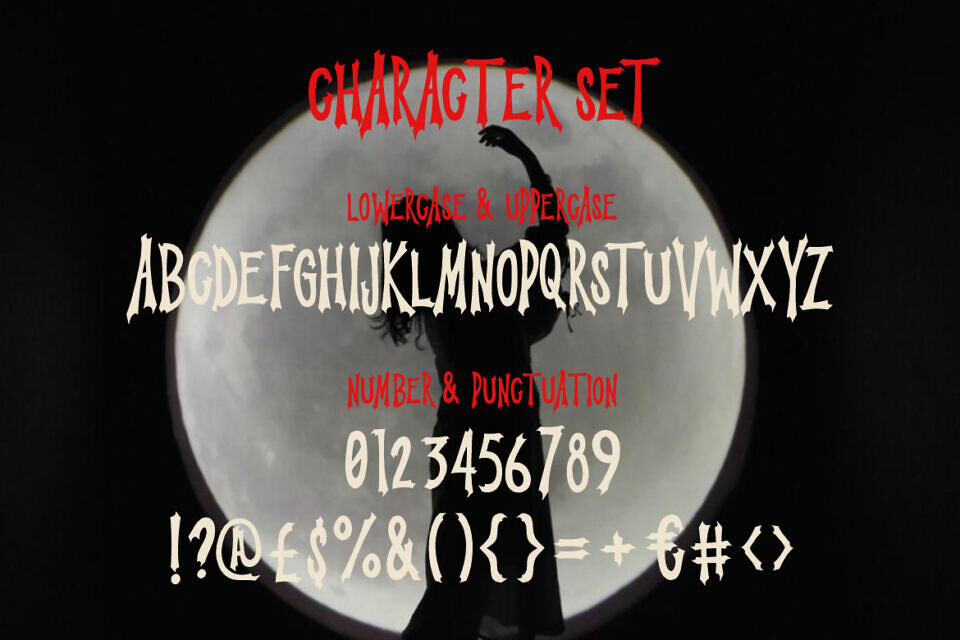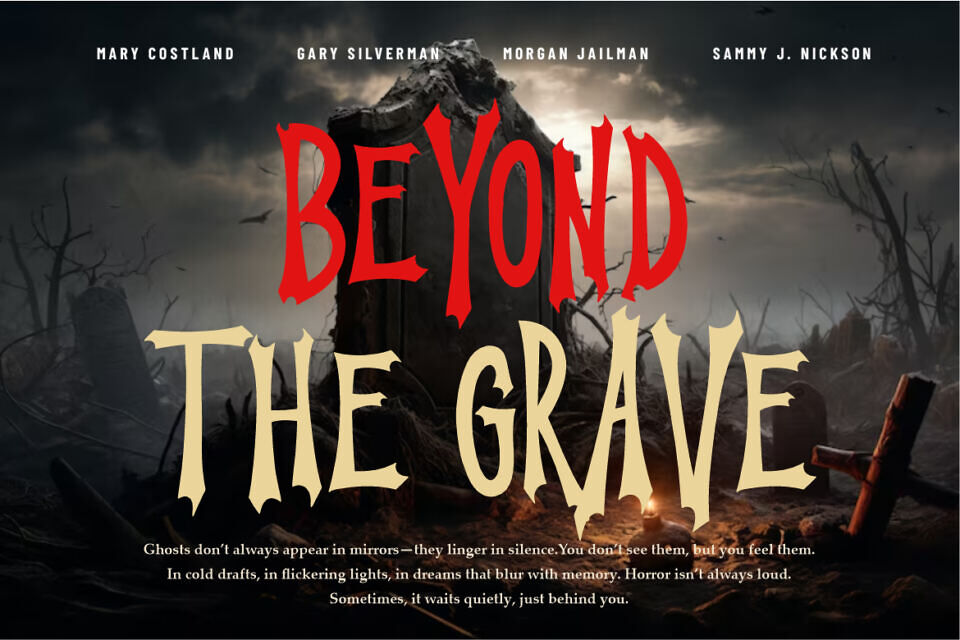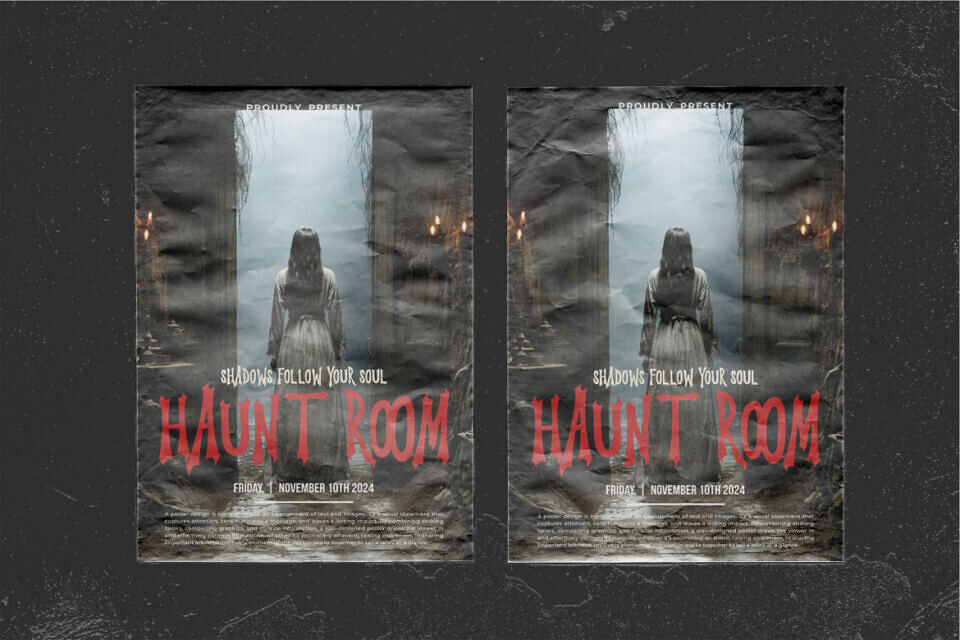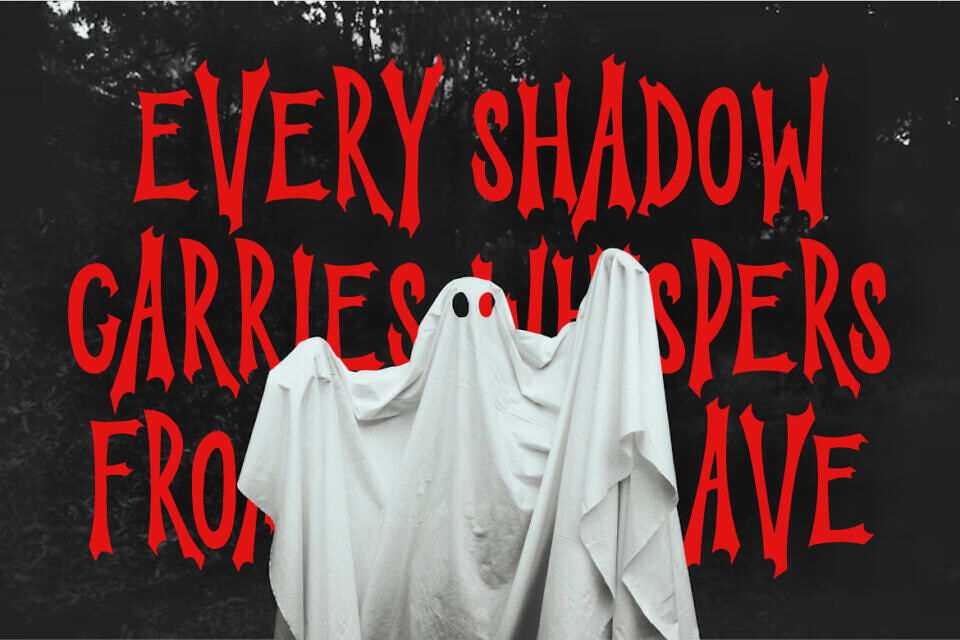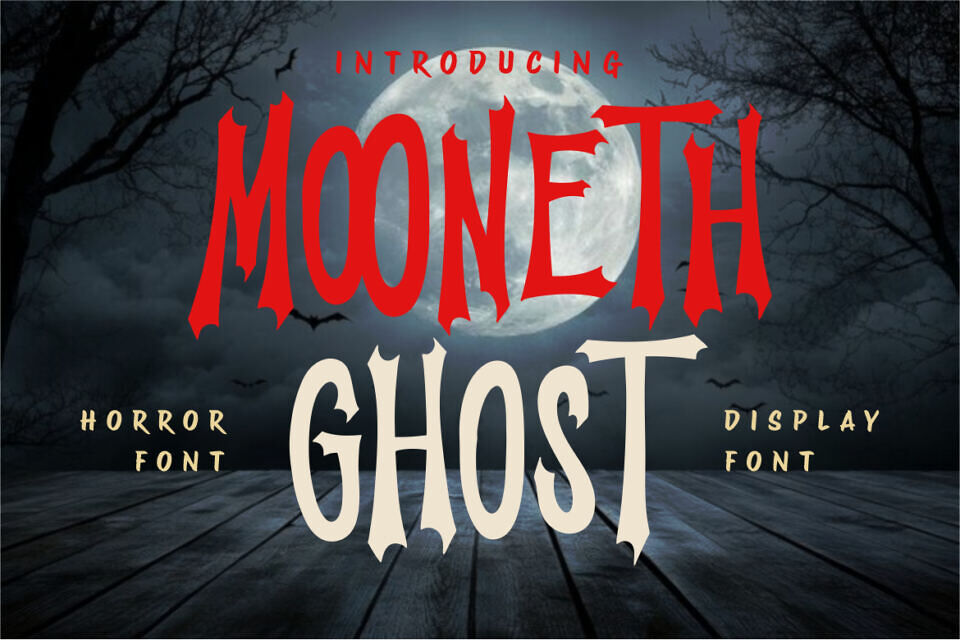
Mooneth Ghost Font
Mooneth Ghost is a horror display font that blends spine-chilling drama with gothic elegance. Each letterform is meticulously crafted with jagged, exaggerated spikes and unsettling asymmetry—perfect for amplifying the fear factor in your creative work.
The uppercase and lowercase set mimics hand-slashed ink strokes, evoking supernatural energy in every glyph. The font uses a two-tone color scheme—bold red and aged ivory—that enhances contrast, intensity, and drama across headlines, titles, and branding.
With haunting curves and menacing angles, Mooneth Ghost is a typeface that screams for attention in horror movie posters, Halloween party invites, thriller book covers, and spooky branding.